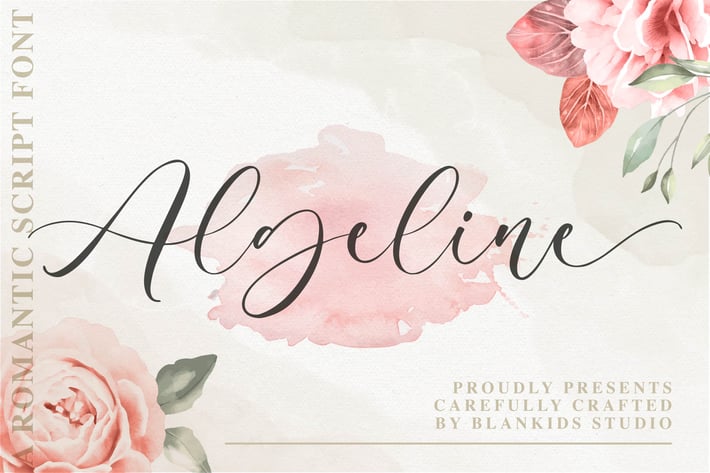
Algeline a Romantic Script Font
Introducing of our new product the name is Algeline a Romantic Script Font. Algeline inspired by modern calligraphy style this font is a fun theme very good for display, tshirt design, craft, quote sign, logotype and etc